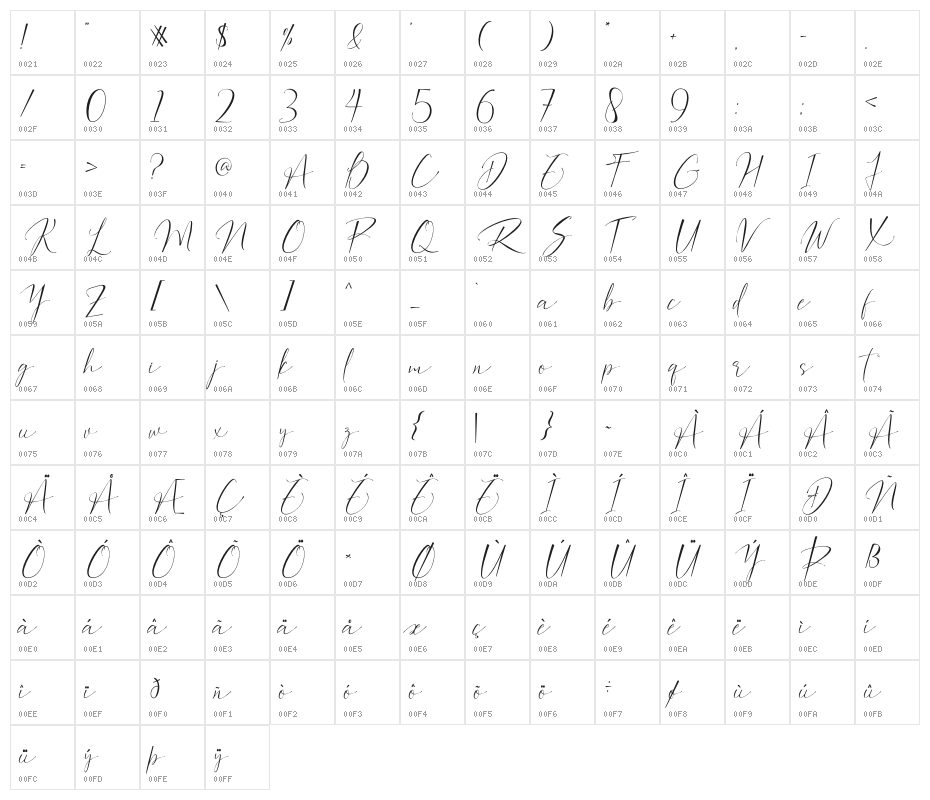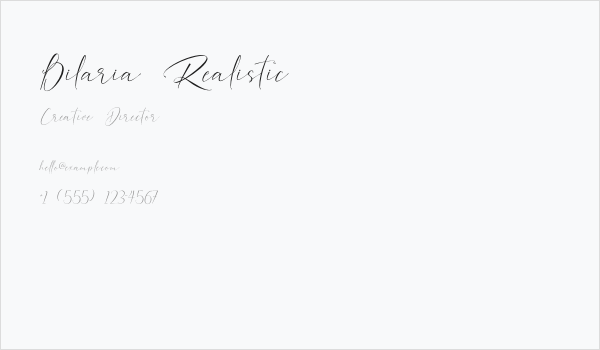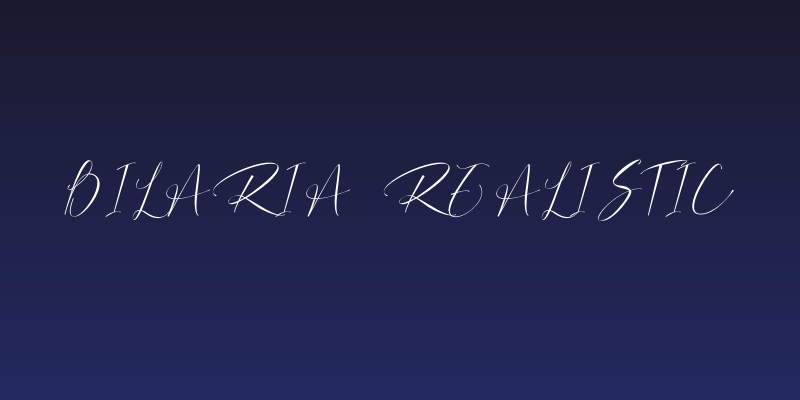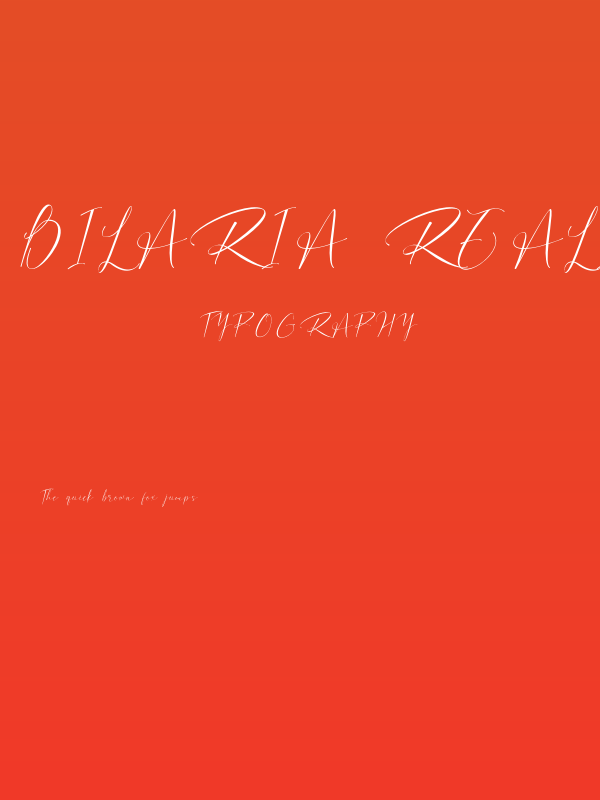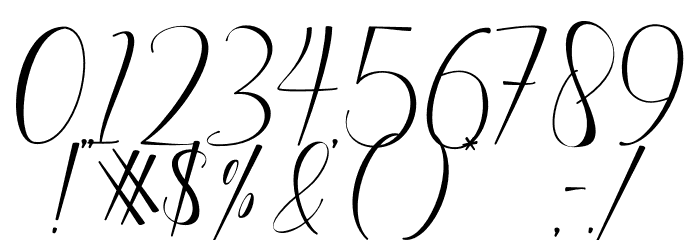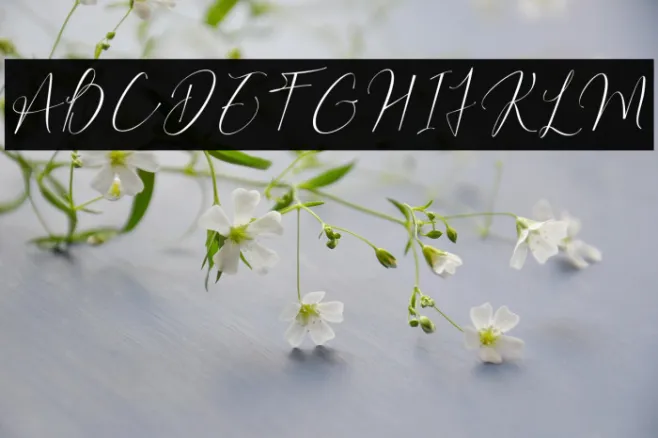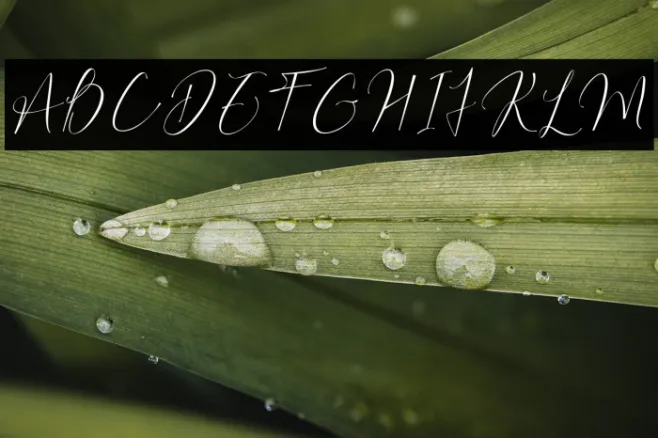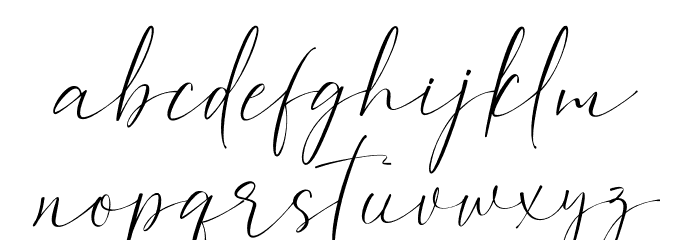
Bilaria Realistic Font
Bilaria Realistic Description
This elegant script font features a flowing, cursive style with a modern touch. The letters are characterized by their graceful, sweeping curves and delicate strokes, giving it a sophisticated and artistic appearance. The uppercase letters are slightly more elaborate, with extended flourishes, while the lowercase letters maintain a consistent fluidity. The numerals and special characters complement the overall style, maintaining the same elegant and refined look. This font is perfect for projects that require a touch of elegance and creativity.
| Overall Style | Modern, Elegant |
| Proposed Projects | Ideal for wedding invitations, branding, greeting cards, and elegant logos. |